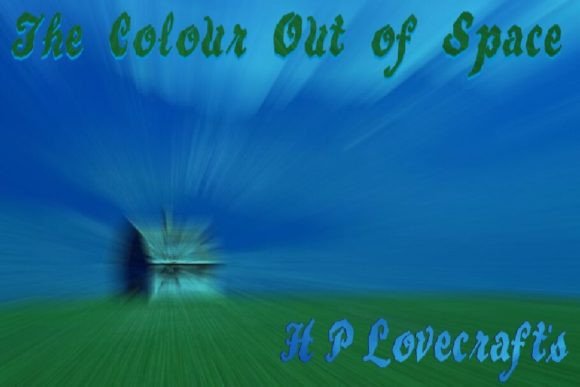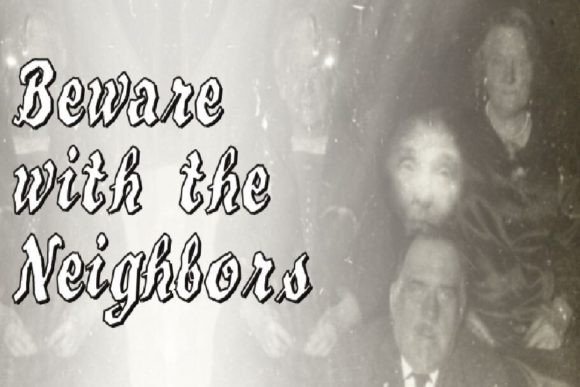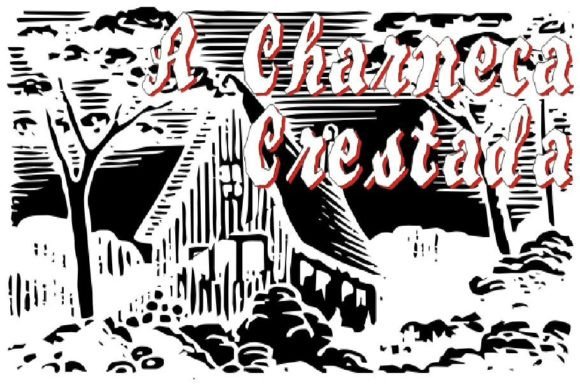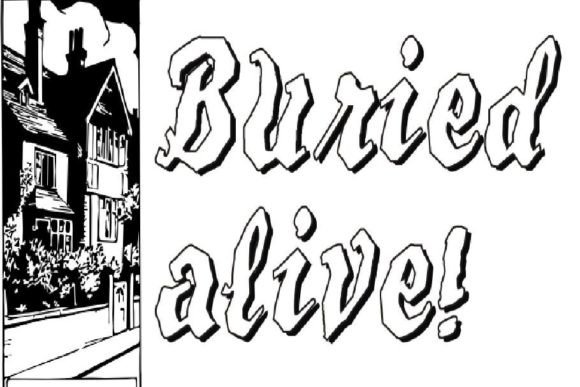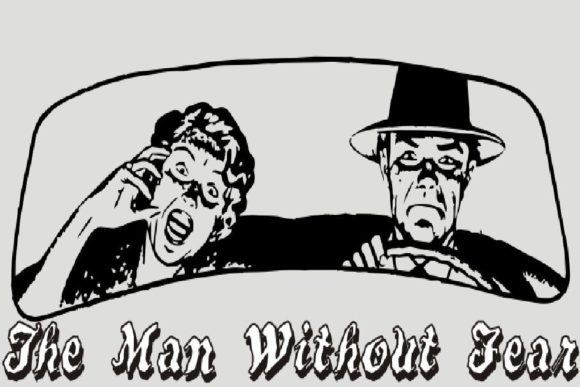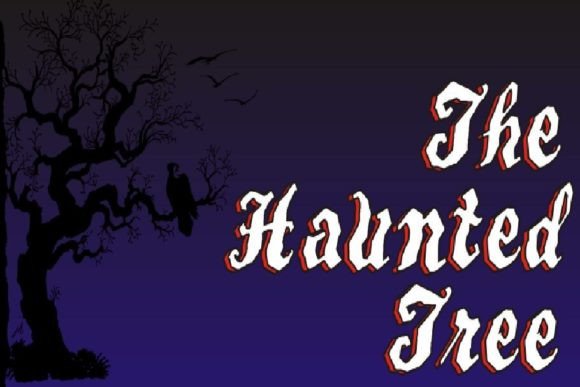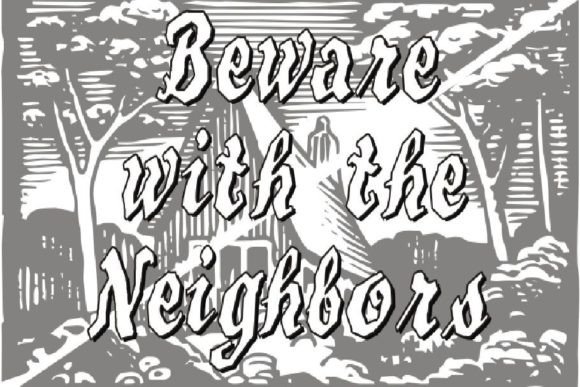
The Creepy Charm of Beware The Neighbors Font
Have you ever been working on a design project, pouring your heart and soul into it, and suddenly realized that something’s missing? For me, it was the perfect font. I was creating a spooky-themed invitation for a friend’s Halloween party, and I just couldn’t find a font that captured the eerie, yet playful vibe I was going for. That’s when I stumbled upon Beware The Neighbors, a font that would become the perfect fit for my design.
A Brief History of Beware The Neighbors
Beware The Neighbors is based on “Personality Script”, a rough alphabet originally drawn by Ross F. George, and published in one of the Speedball series of lettering catalogs that ran from 1935 to 1948. The design is something of a minor classic, and several foundries have recreated digital fonts based on it. However, most of these interpretations are very “geometric”, formed using straight lines. Intellecta preferred to create a new interpretation using smoother, curved lines to create a creepy appearance.
So, what do I love about Beware The Neighbors? Here are a few things:
- ✨ Its unique, hand-drawn feel that adds a touch of personality to any design
- âś… The creepy, yet playful vibe that makes it perfect for Halloween-themed designs or spooky projects
- đź’ˇ The inclusion of several ligatures and OpenType stylistic alternates, which allows for even more customization
However, there are a few small quirks to be aware of:
- 🤔 Some letters may appear a bit inconsistent in terms of line width, which can be a bit distracting if you’re used to more uniform fonts
- ⚠️ The font may not be the best choice for body text, as it’s more suited for headlines or titles
The Designer Inspiration Behind Beware The Neighbors
According to Intellecta, the foundry behind Beware The Neighbors, the font was inspired by the original “Personality Script” alphabet drawn by Ross F. George. The design team wanted to create a new interpretation that was both creepy and playful, with a unique, hand-drawn feel. They achieved this by using smoother, curved lines to create a sense of eeriness, while still maintaining a sense of playfulness.
| What is the origin of Beware The Neighbors? | Beware The Neighbors is based on “Personality Script”, a rough alphabet originally drawn by Ross F. George, and published in one of the Speedball series of lettering catalogs that ran from 1935 to 1948. |
| What makes Beware The Neighbors unique? | Beware The Neighbors has a unique, hand-drawn feel with a creepy, yet playful vibe, making it perfect for Halloween-themed designs or spooky projects. |
| Is Beware The Neighbors suitable for body text? | No, Beware The Neighbors is more suited for headlines or titles, as it may not be the best choice for body text due to its inconsistent line width. |